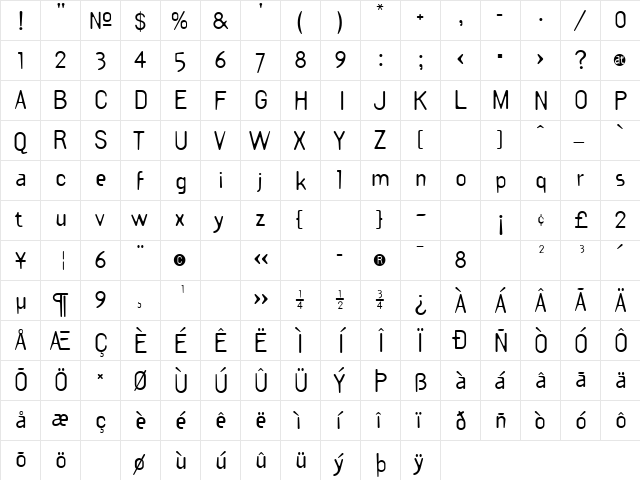
TemplateGothic Regular Font Preview
TemplateGothic Regular
TemplateGothic Regular Font Details
| Foundry | Emigre Inc. |
| Designer | Barry Deck |
Design Context for TemplateGothic Typeface
TemplateGothic takes a clean, functional approach — its unadorned letterforms prioritise legibility and work reliably across screen and print environments.
Font Pairing: Works well alongside a characterful serif or display font that can carry the expressive load while TemplateGothic handles the functional copy.
Pro Tip: Use TemplateGothic for UI labels, navigation, and short-form body copy where clean legibility is the priority.